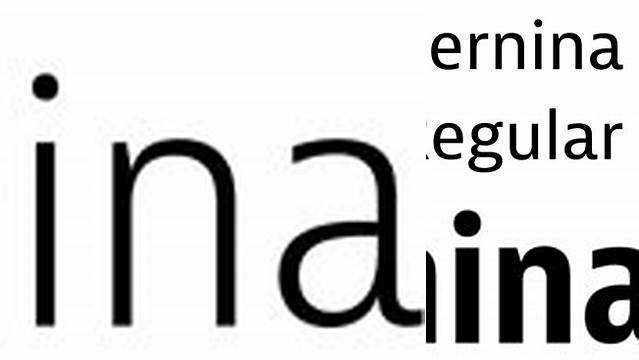
Hey everyone! Are you on the hunt for a stylish and versatile font that packs a punch? Look no further, because we're diving deep into the world of the Bernina Sans Bold font, and the best part? We'll be exploring how you can snag a free download! This fantastic font is a favorite among designers, writers, and anyone who loves a clean, modern aesthetic. In this article, we'll cover everything you need to know about the Bernina Sans Bold, from its characteristics to where you can find it for free. So, buckle up and get ready to elevate your design game! Bernina Sans Bold is a font that exudes both elegance and readability. Its bold weight makes it perfect for headlines, titles, and any text that needs to grab attention. But don't worry, it's also incredibly versatile and works well in body text, too. It's like having a secret weapon in your font arsenal, ready to tackle any project. We'll also explore the legalities of using free fonts, ensuring you stay on the right side of the law. Downloading fonts can sometimes feel like navigating a minefield, so we'll provide you with safe and reliable sources where you can download the Bernina Sans Bold font without any worries. Get ready to say goodbye to generic fonts and hello to a world of visual creativity with the Bernina Sans Bold font. Let's jump right in and unlock the secrets to acquiring this awesome font for free. We're here to make sure you not only get access to the font, but also understand how to use it effectively in your projects. Get ready for a font-tastic adventure!
Exploring the Features of Bernina Sans Bold
Alright, let's get down to the nitty-gritty and explore the awesome features that make the Bernina Sans Bold font so special, yeah? This isn't just any font; it's a carefully crafted design that brings a unique blend of readability and visual appeal to the table. We're going to dissect what sets this font apart, and why it's become a go-to choice for designers worldwide. First off, let's talk about its boldness. The Bernina Sans Bold font doesn't shy away from making a statement! Its thick, strong strokes ensure that your text pops, making it ideal for headlines, titles, and anything that needs to immediately grab attention. But don't be fooled by the 'bold' in its name – it's not all about shouting. This font has a subtle elegance that makes it perfect for both digital and print applications. Think of it like this: It's the font equivalent of a power suit – confident, polished, and ready to make a statement. Another standout feature of Bernina Sans Bold is its incredible readability. In today's world of fleeting attention spans, clarity is key. This font ensures that your message gets across crystal clear. The design is all about balance, ensuring each letter is distinct without being distracting. This makes it a fantastic choice for everything from website headers to posters. Its design lends itself to a wide range of applications, from website design to print media. It's equally at home on a sleek, modern website as it is on a beautifully designed poster. The versatility allows designers to maintain a consistent brand identity across multiple platforms, making it a real workhorse. The Bernina Sans Bold font offers a clean, contemporary aesthetic. Its modern feel makes it ideal for branding, marketing materials, and any project that wants to convey a sense of sophistication. It's a font that's designed to stay relevant, no matter the current design trends. So, what are we waiting for? Let’s dive deeper into the features that make Bernina Sans Bold a truly outstanding font.
Characteristics and Design Elements
Let's get even more granular and dissect the specific characteristics and design elements that make Bernina Sans Bold a visual masterpiece, shall we? This font isn't just a collection of letters; it's a carefully considered piece of art that blends form and function seamlessly. We will now look at the individual design aspects that contribute to its unique appeal, making it a must-have for designers. One of the key design elements of Bernina Sans Bold is its geometric construction. The letterforms are based on clean, geometric shapes, which give it a modern and structured look. This precision not only enhances readability but also gives the font a sophisticated edge. This is what makes the font so versatile, working in almost any situation. The spacing between the letters is carefully considered. This is super important to avoid letters running together or appearing disjointed. The kerning, or spacing between individual letters, is meticulously adjusted to ensure that the words flow smoothly and are easy to read. The design of the letter 'g' is also unique in the font, ensuring visual consistency across all the characters. This specific detail in the font adds to its distinctive character. Another characteristic that makes Bernina Sans Bold stand out is its weight and contrast. The font's bold weight is used to create a striking visual impact, while the contrast between thick and thin strokes adds interest and sophistication. It's this combination of boldness and subtlety that makes it so captivating. The design of the font also pays attention to the details. This attention to detail shows the craftsmanship of its design. These elements all come together to create a font that's not just readable, but visually arresting. Understanding these elements can help you use Bernina Sans Bold to its full potential. It's about making informed design decisions to elevate your projects.
Comparing Bernina Sans Bold to Other Fonts
Alright, time to compare and contrast! Let's put Bernina Sans Bold up against some other popular fonts to see what makes it shine, huh? Choosing the right font is like choosing the perfect outfit – it needs to fit the occasion and complement your style. We will also analyze its pros and cons, giving you a clearer picture of its strengths and weaknesses compared to other fonts in its category. One of the main competitors to Bernina Sans Bold is Helvetica Neue. Helvetica is a classic, known for its clean lines and neutrality. While Helvetica is incredibly versatile and widely used, Bernina Sans Bold offers a more contemporary feel with its bolder weight and slight variations in design. For projects that need to capture attention, Bernina Sans Bold might be the better choice. The bold weight of Bernina Sans Bold gives it an edge. In comparison to Arial, Bernina Sans Bold offers a more refined and modern aesthetic. Arial, being a widely used default font, can sometimes appear bland. The added weight of Bernina Sans Bold makes it pop. Another font worth comparing is Montserrat, a popular free font. Both are excellent choices for modern designs. Montserrat, however, tends to be slightly more condensed and has a more geometric feel. The Bernina Sans Bold font stands out for its balance of boldness and readability. When using Bernina Sans Bold, it maintains clarity even in smaller sizes. When comparing to Open Sans, another popular option for body text, Bernina Sans Bold offers a bolder presence. Open Sans is a versatile and readable font, ideal for long blocks of text. For headlines and callouts, Bernina Sans Bold stands out. The choice between these fonts will depend on your project's needs. Choosing the best font is really about the overall goal. The key is to consider your design goals and target audience. Consider the brand and choose a font that conveys the right message!